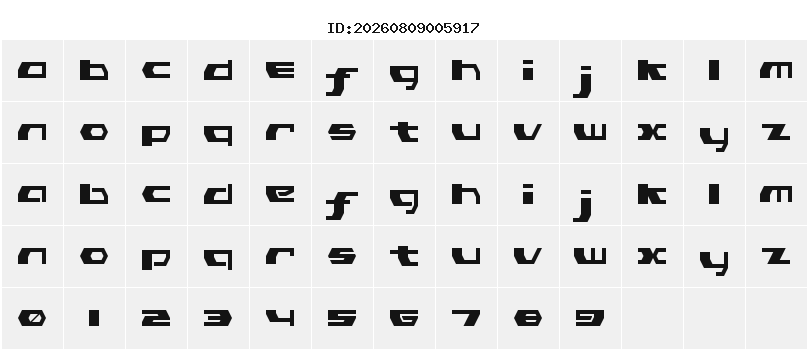
• Font Name: Pink Has Gone Extinct Regular
• Font ID: FontStruct Pink Has Gone Extinct Regular
• Full Font Name: Pink Has Gone Extinct Regular Regular
• PostScript Name: Pink-Has-Gone-Extinct-Regular
• Character Count: 68
• Copyright: Copyright Michał “Neoqueto” Nowak 2012
• Designer: Michał “Neoqueto” Nowak
• Description: ‚ÄúPink Has Gone Extinct Regular‚Äù was built with FontStruct
About Pink Has Gone Extinct Regular.ttf
Pink Has Gone Extinct Regular.ttf is a modern, elegant sans-serif font designed for ultimate readability and visual harmony. Perfect for branding, headlines, web design, and print materials.